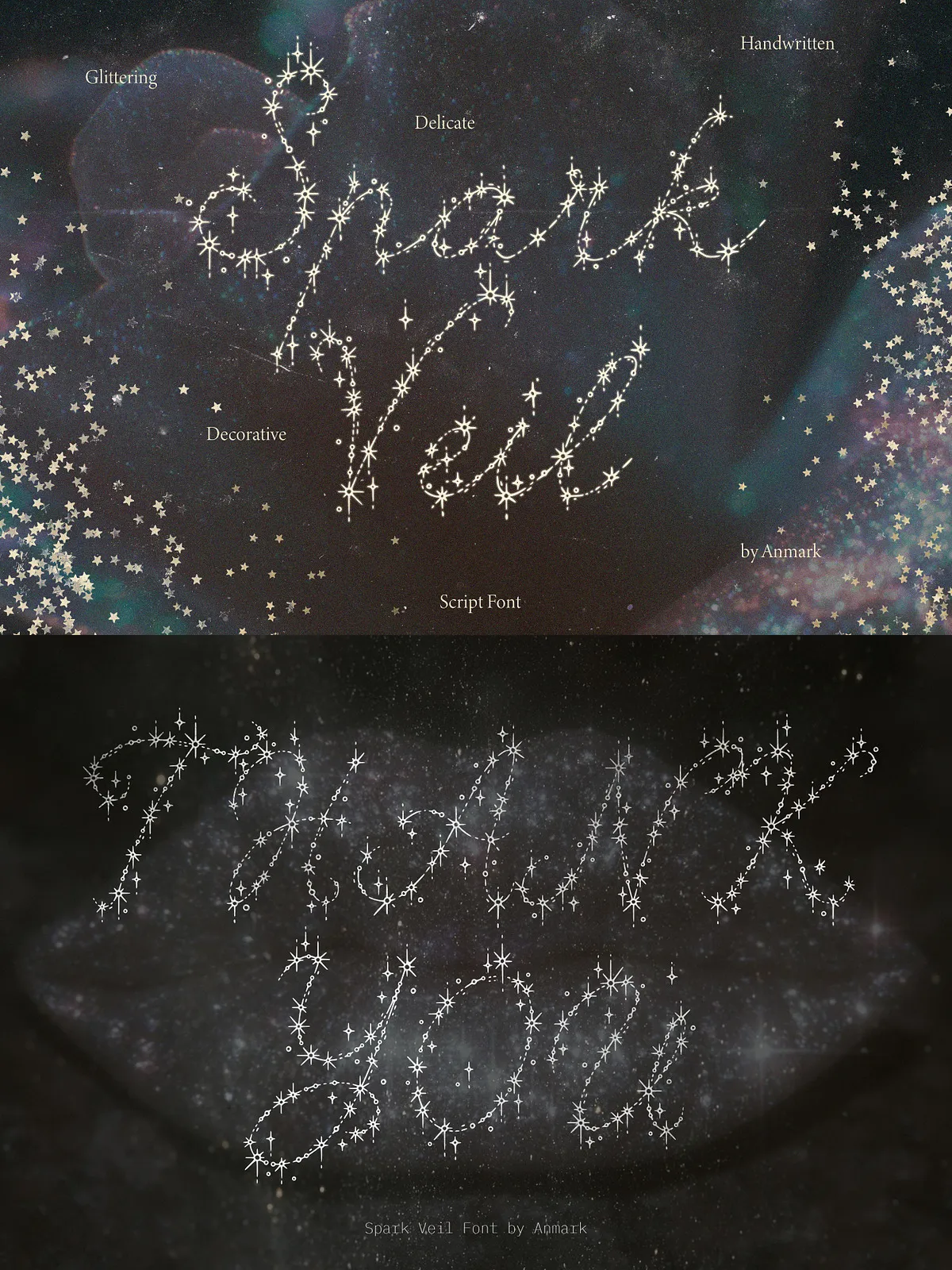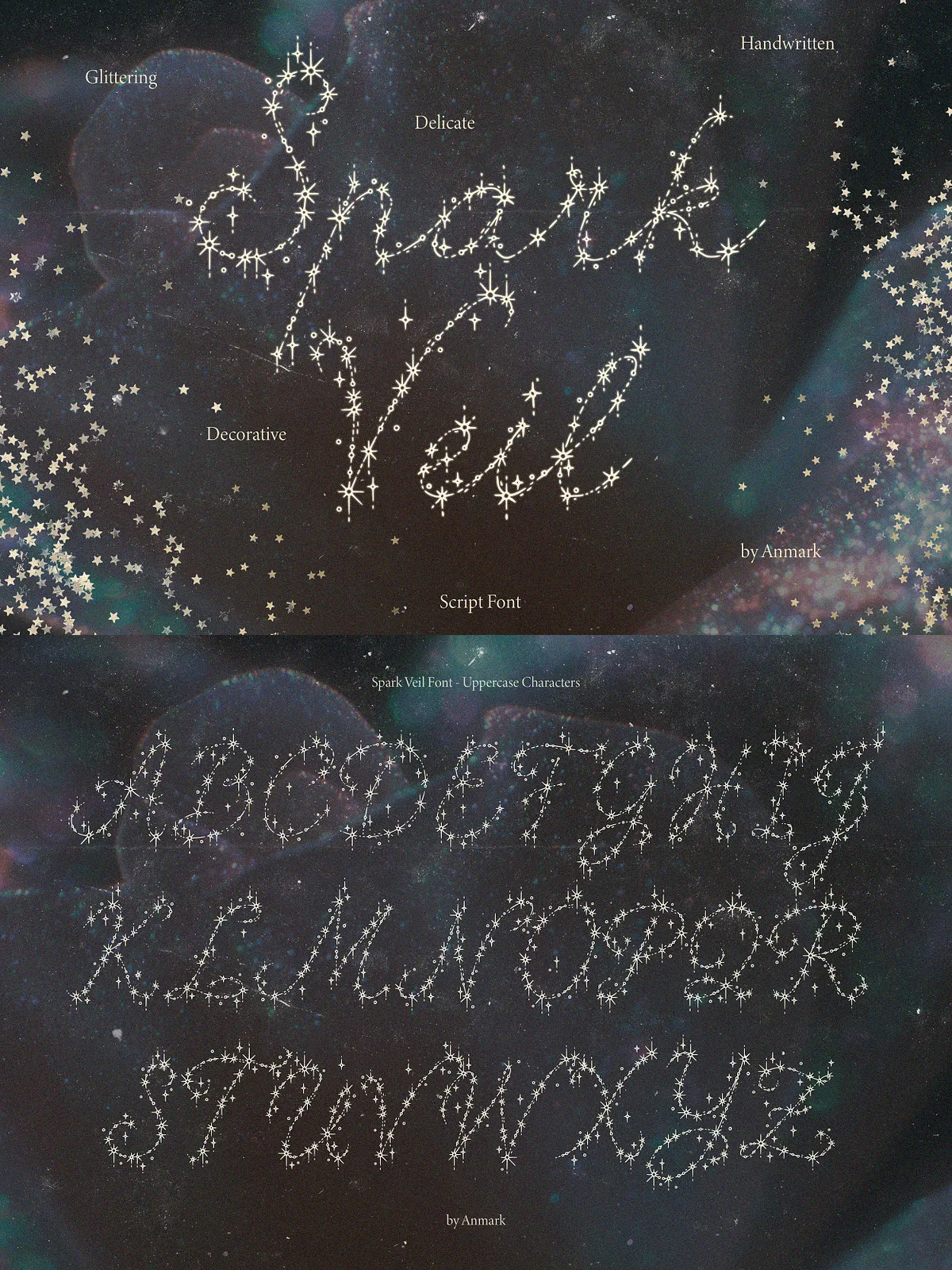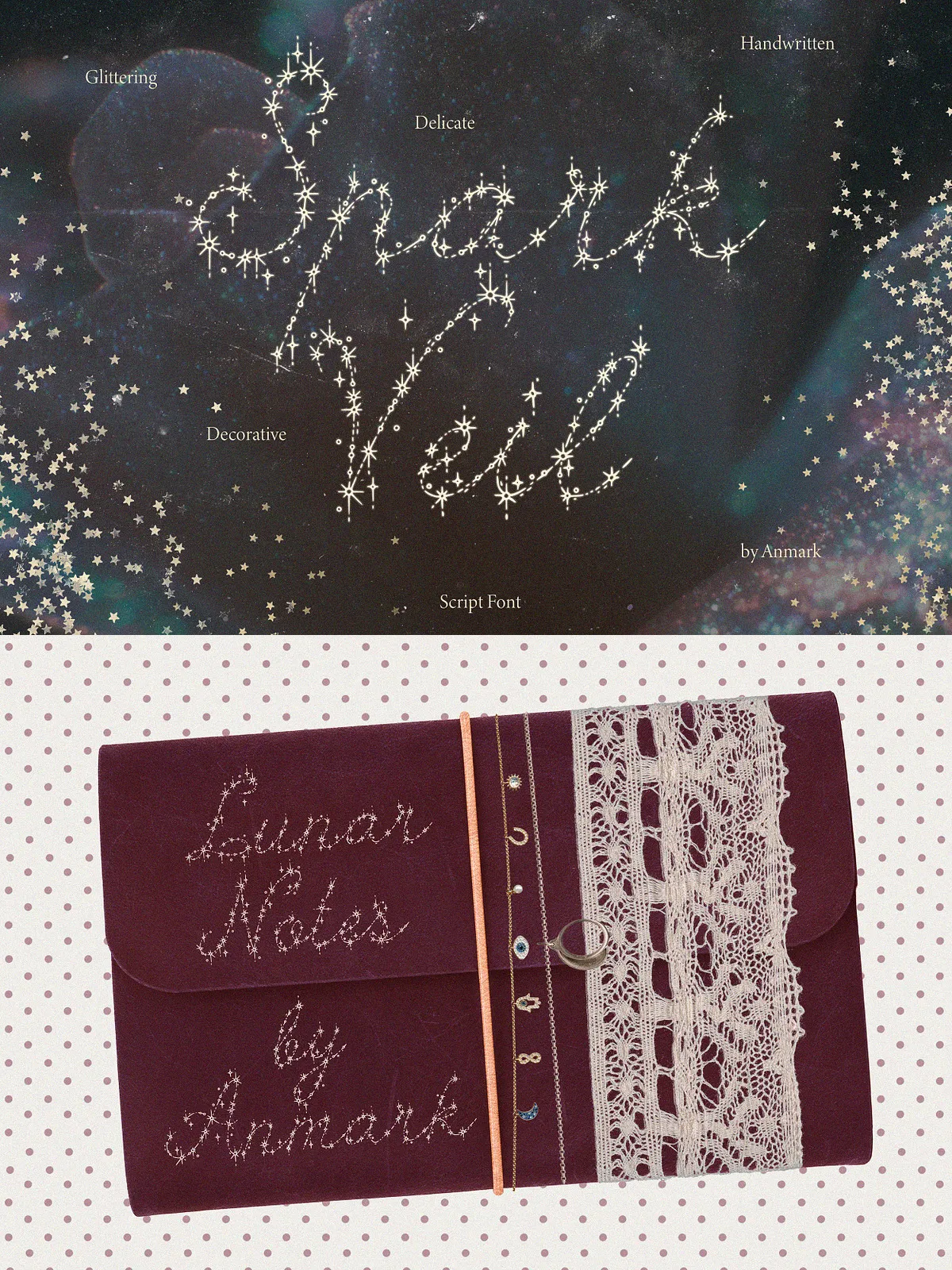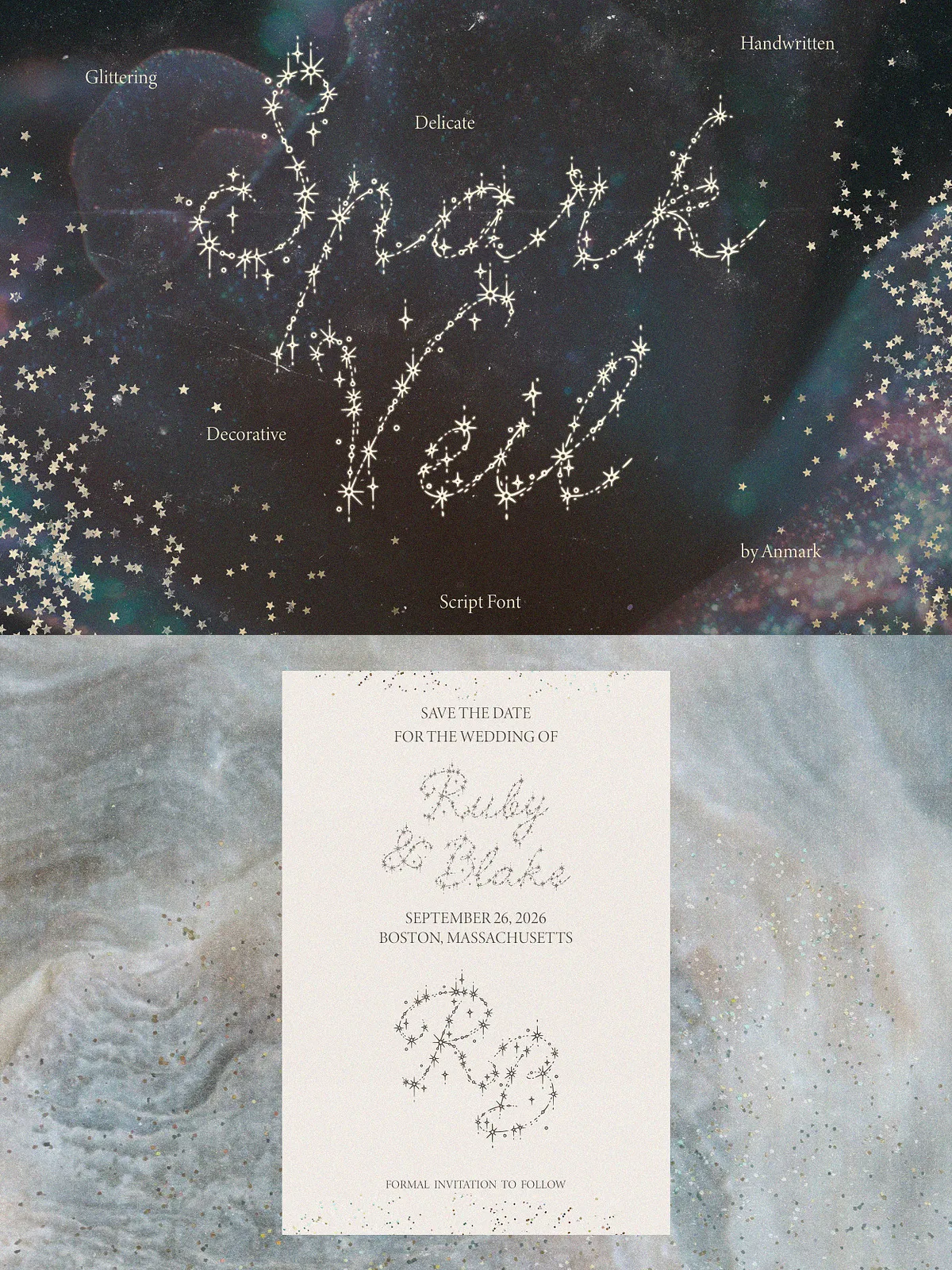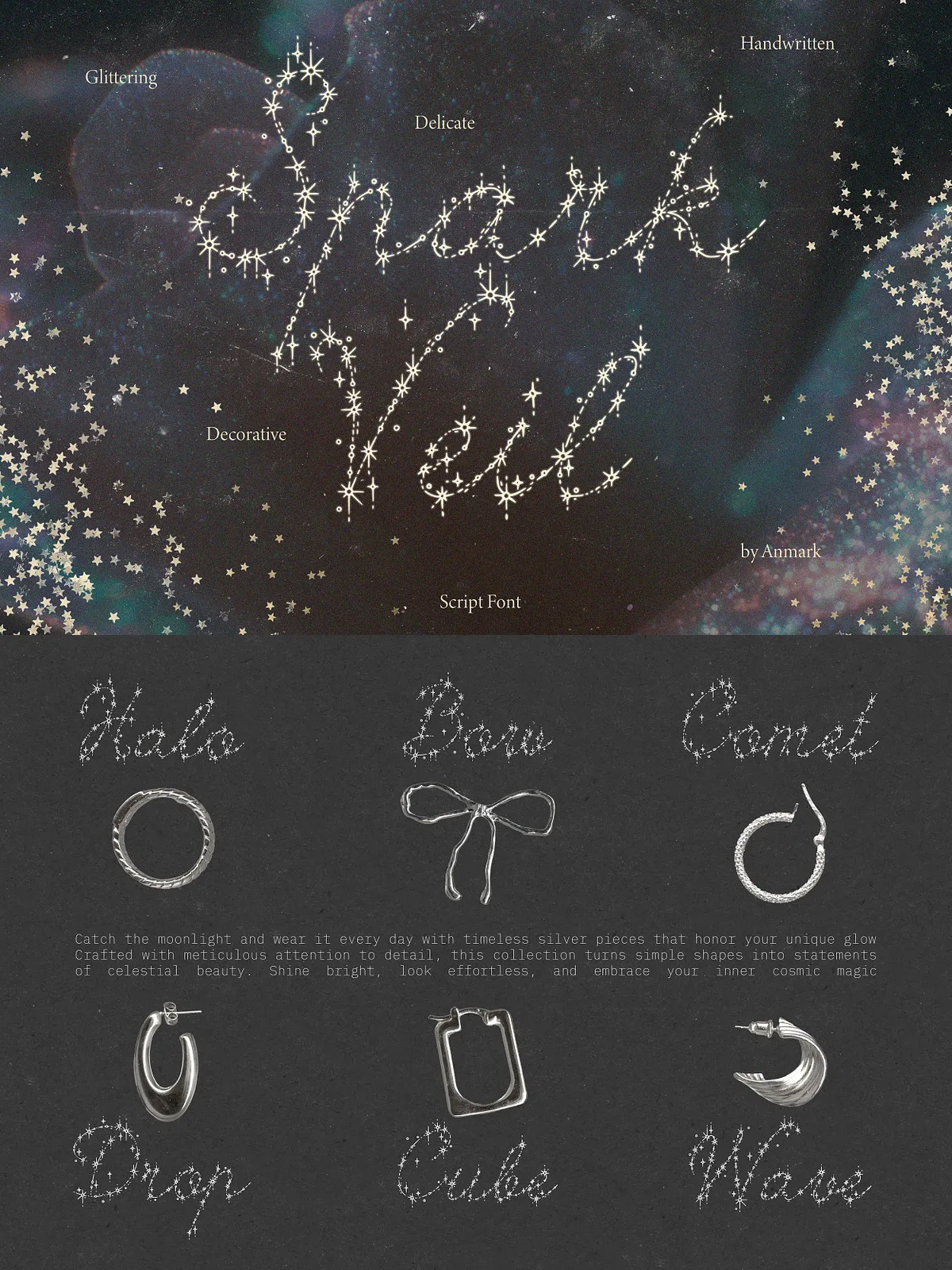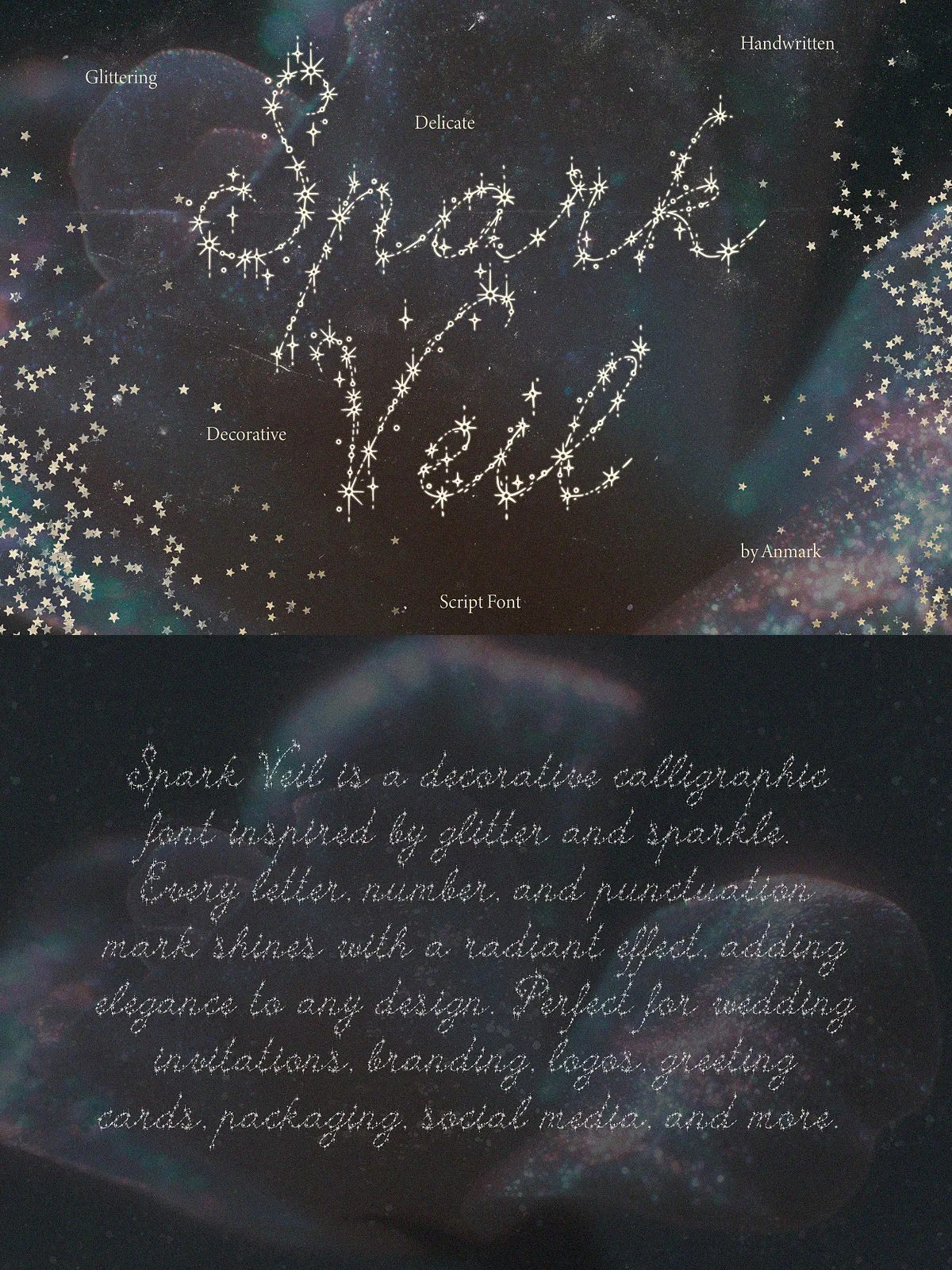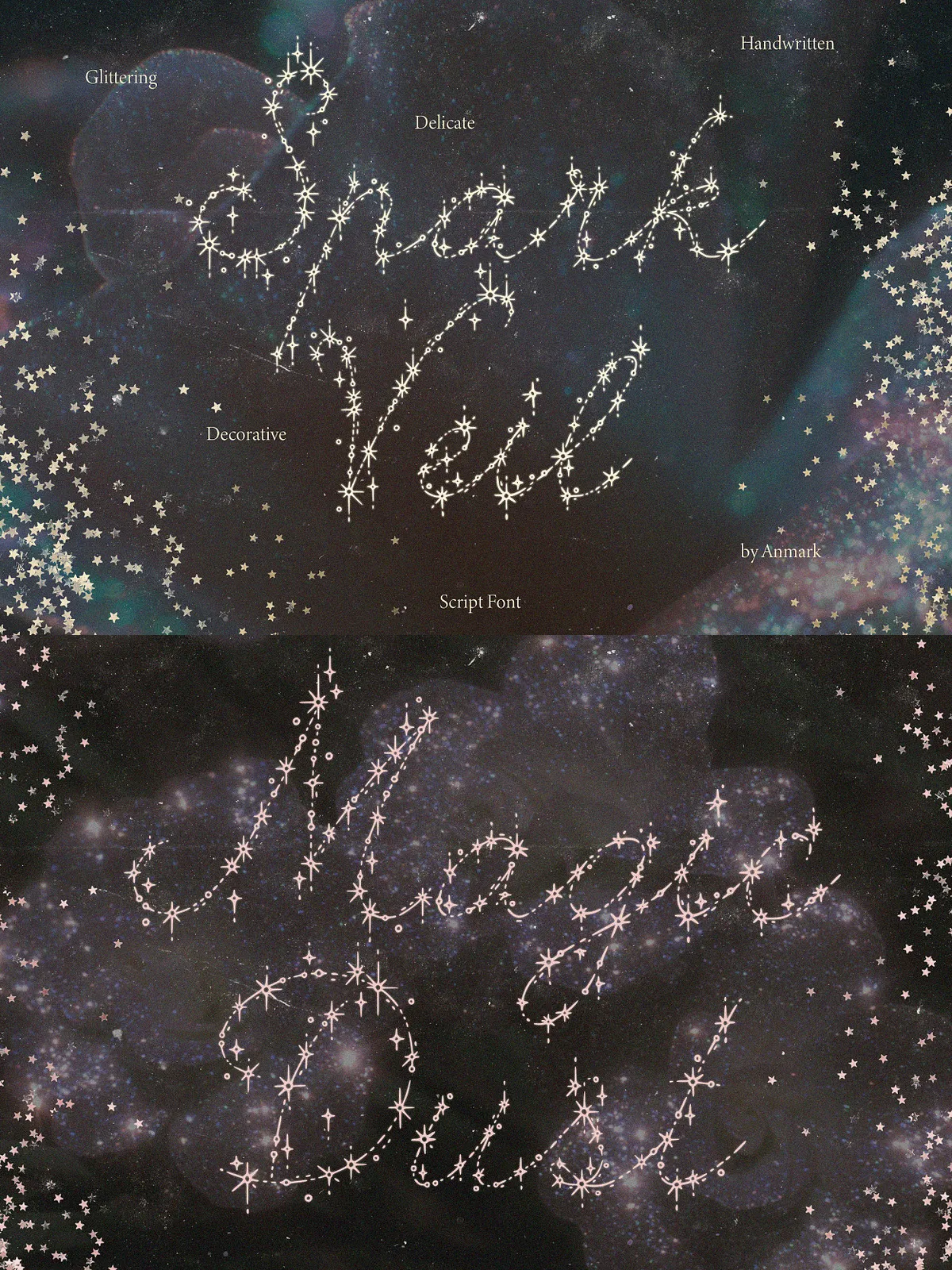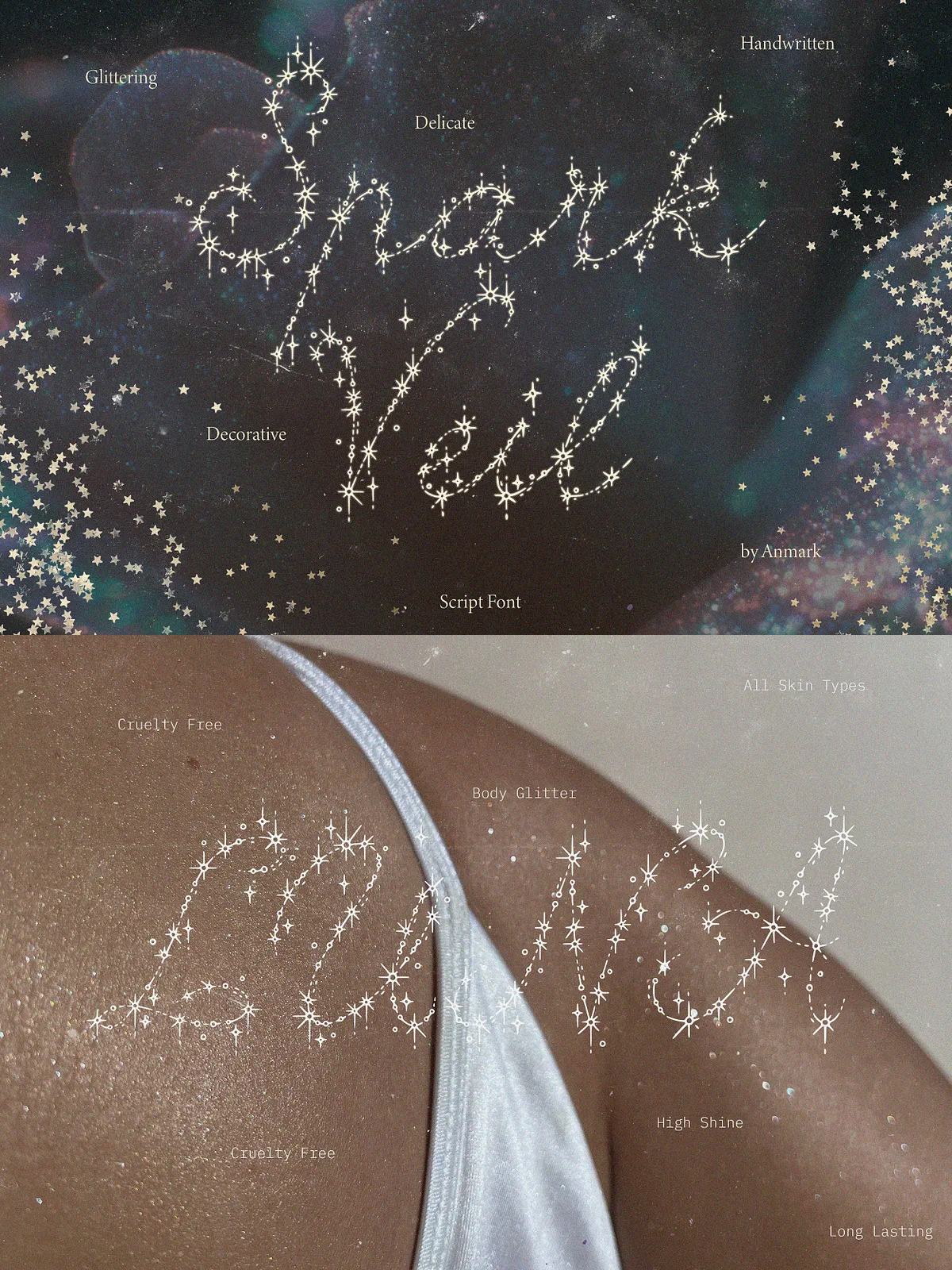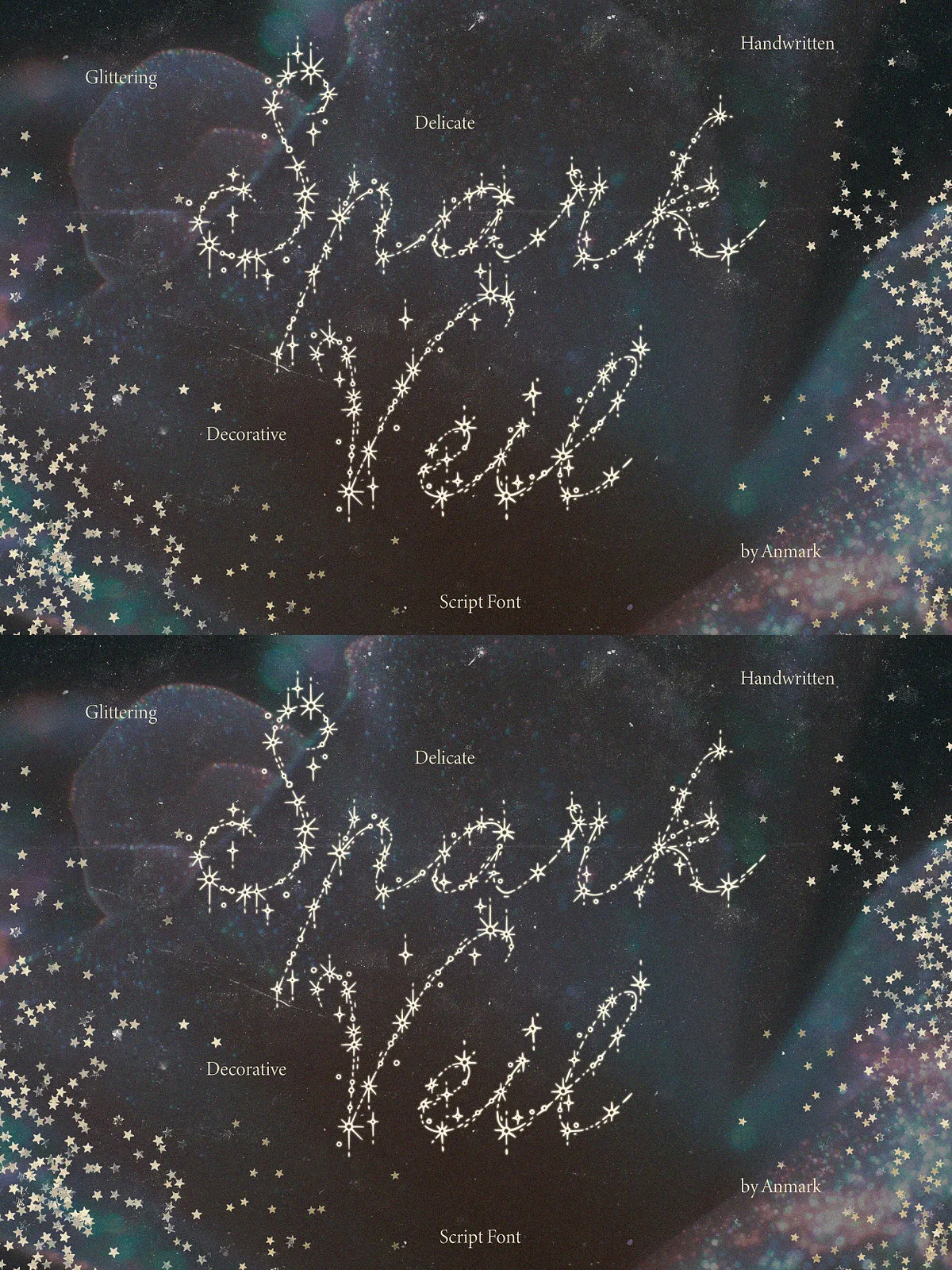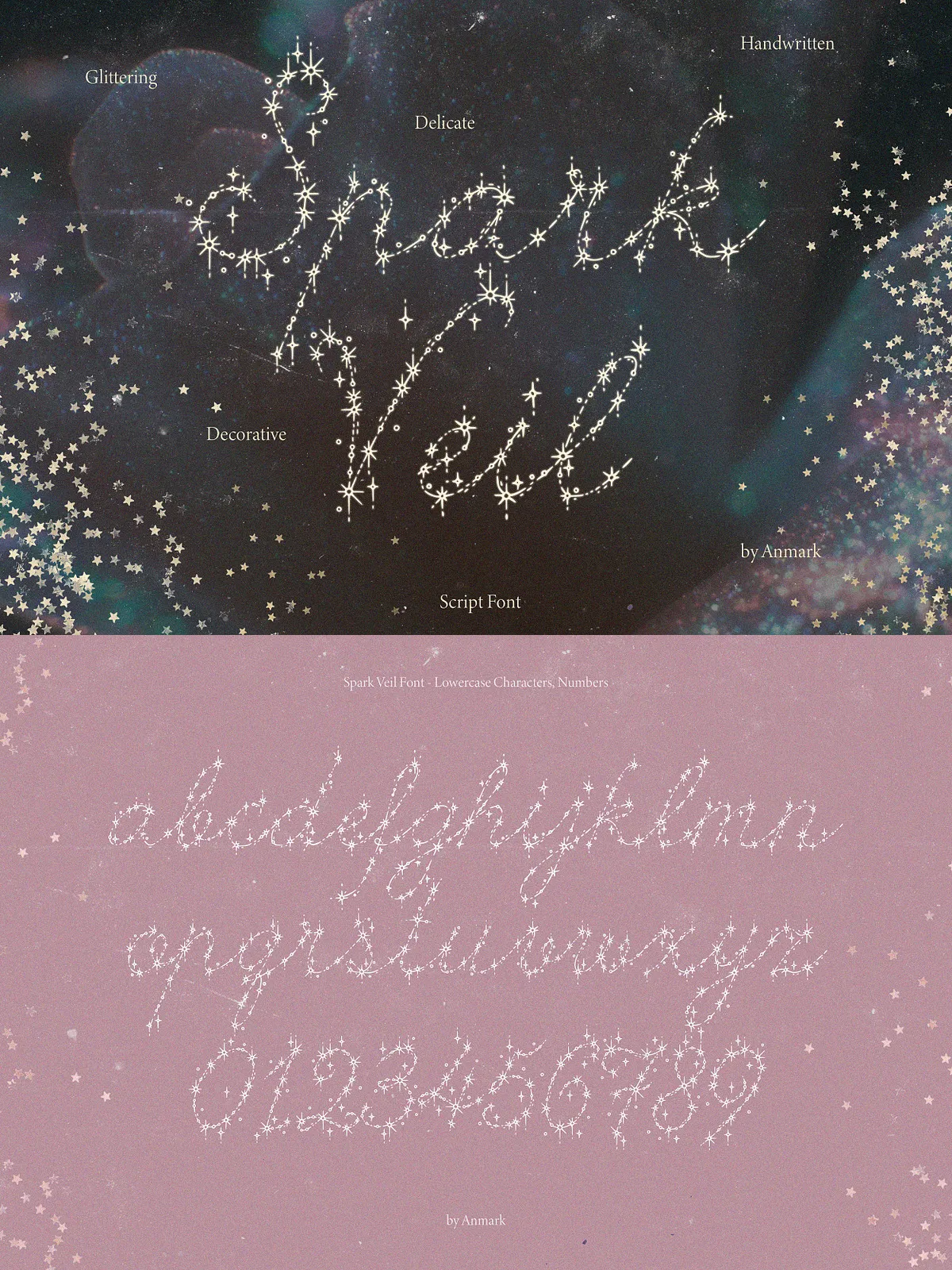
Spark Veil delivers a radiant, decorative display voice that transforms type into shimmering ornament. Each letterform features delicate sparkle details, subtle highlights, and handcrafted texture that read as refined glitter at display sizes. Designed to attract attention without overwhelming, Spark Veil balances ornamental flair with clear shapes so headlines, logos, and short compositions remain legible while dazzling the viewer.
Design Characteristics
Luminous Texture and Sparkle Detailing
The core strength of Spark Veil is its luminous texture: tiny particle-like strokes and soft reflective accents create the impression of glitter catching the light. These details work best at larger sizes where the decorative structure can show, producing a bright, celebratory aesthetic that suits premium, festive, and beauty-focused projects.
Elegant, Refined Letterforms
While decorative, Spark Veil maintains measured proportions and careful spacing so lettershapes feel intentional rather than cluttered. The design emphasizes clarity in display use: counters, terminals, and joins preserve readability while the sparkle motif adds personality and instant visual appeal.
- Decorative display font with glitter-inspired texture and soft highlights.
- Refined letterforms engineered for headlines, logos, monograms, and short text blocks.
- Designed to perform at large sizes where ornamentation reads crisply and attractively.
- Ideal for print and digital display where a glamorous, eye-catching presence is required.
Recommended Uses
Spark Veil suits projects that want a glamorous, radiant typographic identity. Common applications include:
- Wedding invitations, save-the-dates, and event stationery that benefit from an elegant, celebratory tone.
- Beauty and fashion brand identities, packaging, and product labels that require premium sparkle without heavy illustration.
- Logos and monograms where decorative detail enhances brand personality and luxury perception.
- Holiday campaigns, seasonal posters, and greeting cards that need immediate festive appeal.
- Social media graphics, launch banners, and hero headlines that must stand out in a busy visual feed.
Styling Tips & Best Practices
Size and Contrast
Use Spark Veil at display sizes for best effect: large headings, poster titles, and packaging fronts let the sparkle texture resolve clearly. Maintain strong contrast between type color and background so the shimmer details remain visible; metallic, pastel, and rich dark palettes amplify the luminous quality.
Pairing Suggestions
Pair Spark Veil with a clean, neutral sans or a subtle serif for body copy to preserve readability and hierarchy. Let Spark Veil carry the headline or logo while secondary text uses an unobtrusive companion font. For layered effects, place Spark Veil over soft gradients, foil textures, or photographic highlights to intensify the perceived sparkle.